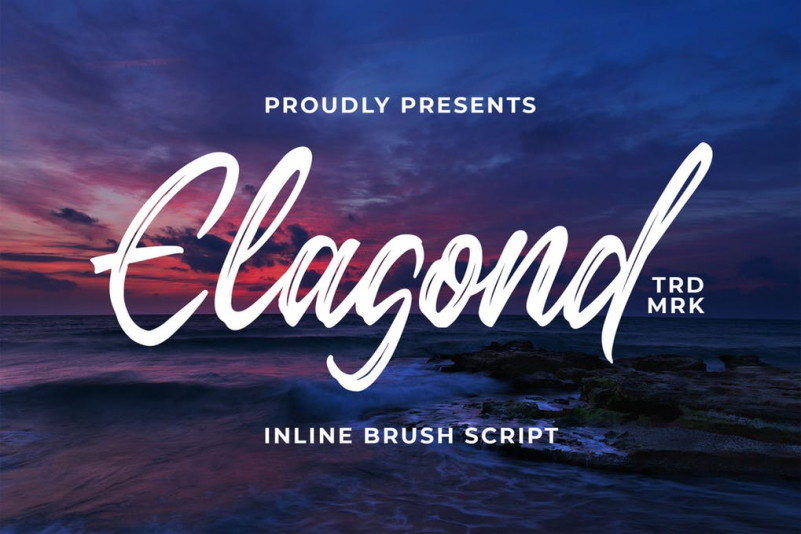
Elagond Font
Introducing of our new product the name Elagond Inline Brush Script Font. Elagond inspired from brush inline this font is a fun theme very good for signature, poster, branding, logotype etc